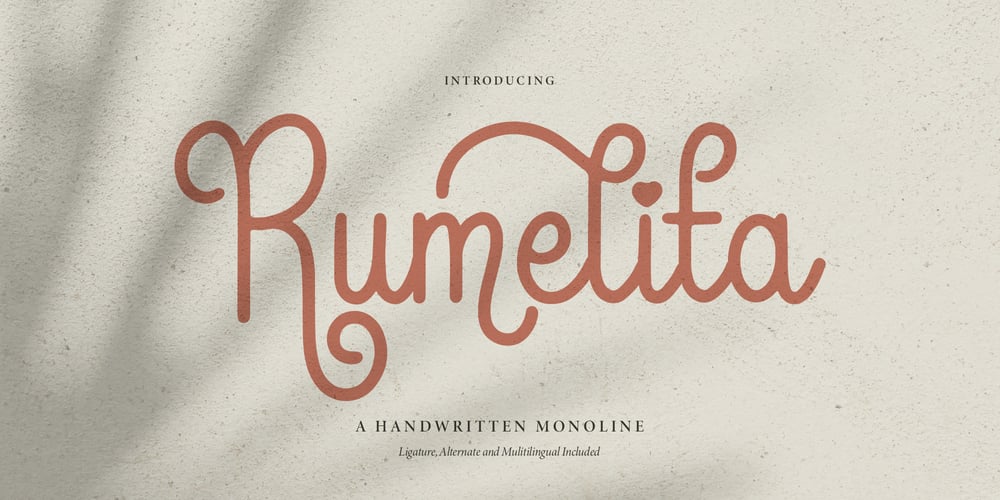
Rumelita
Rumelita font
Rumelita Font Family was designed by Dede Nugraha and published by Denustudio. Rumelita contains 2 styles and family package options. Rumelita | Handwritten Monoline, from Denustudios, suitable for any projects such as: logos, branding projects, homeware designs, product packaging, mugs, quotes, posters, shopping bags, t-shirts, book covers, name card, invitation cards, greeting cards, label, photography, watermark, special events, and all your other lovely projects that need a Handwritten Monoline taste.===========================================================================What’s Included : Regular and Italic Web Font Standard glyphs Alternate and Ligature Works on PC & Mac Simple installations Accessible in the Adobe Illustrator, Adobe Photoshop, Adobe InDesign, even work on Microsoft Word and Other Software. PUA Encoded Characters – Fully accessible without additional design software. Fonts include multilingual support Hope you enjoy with our font!